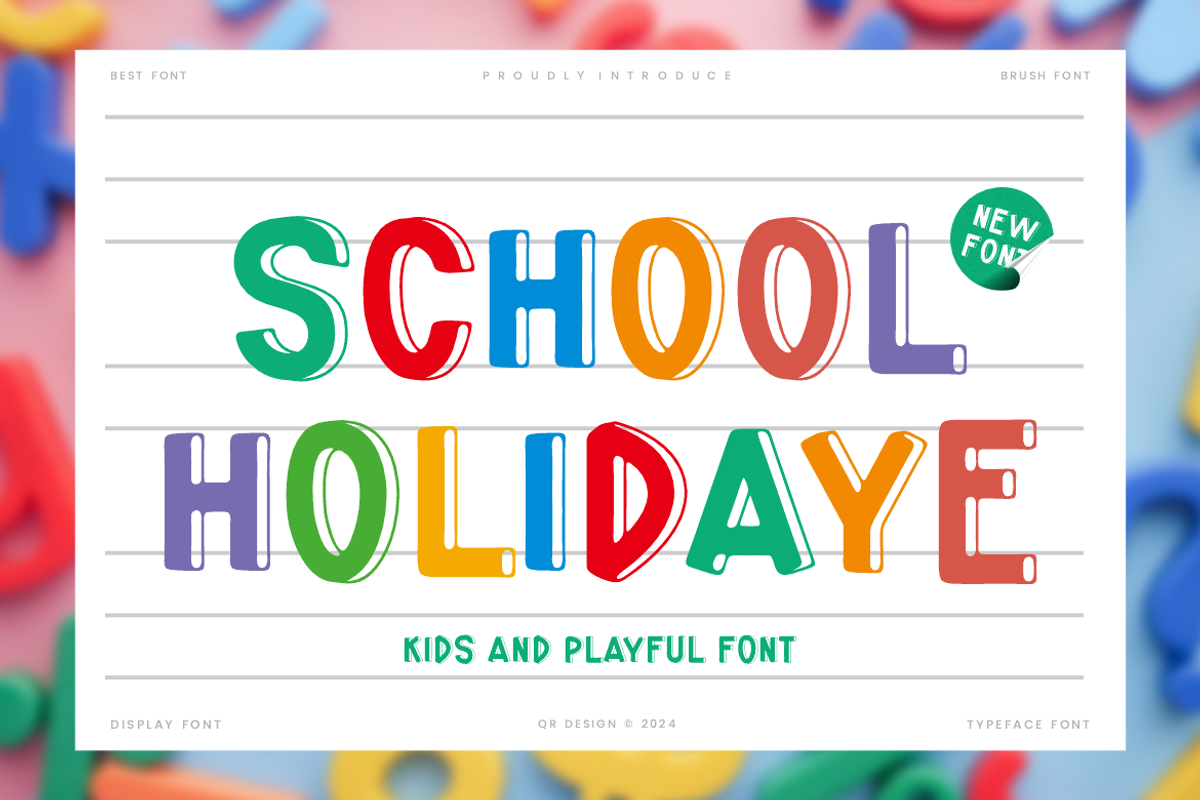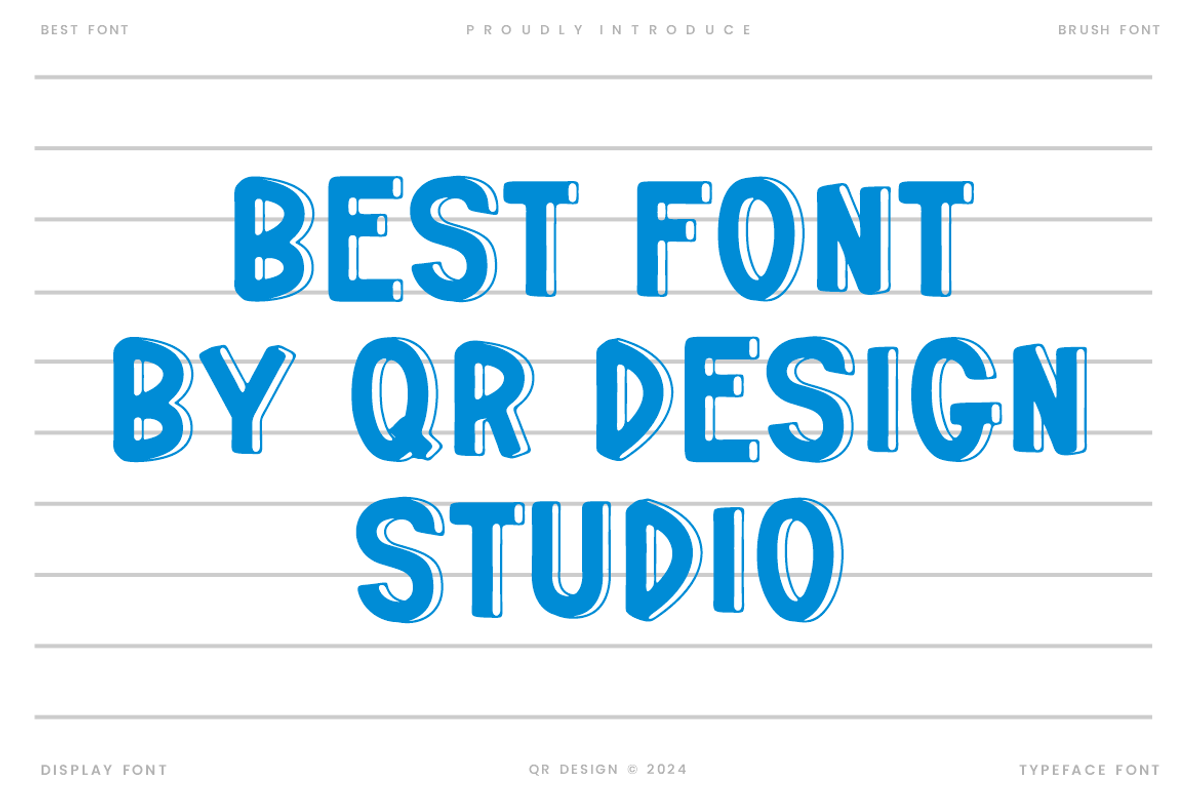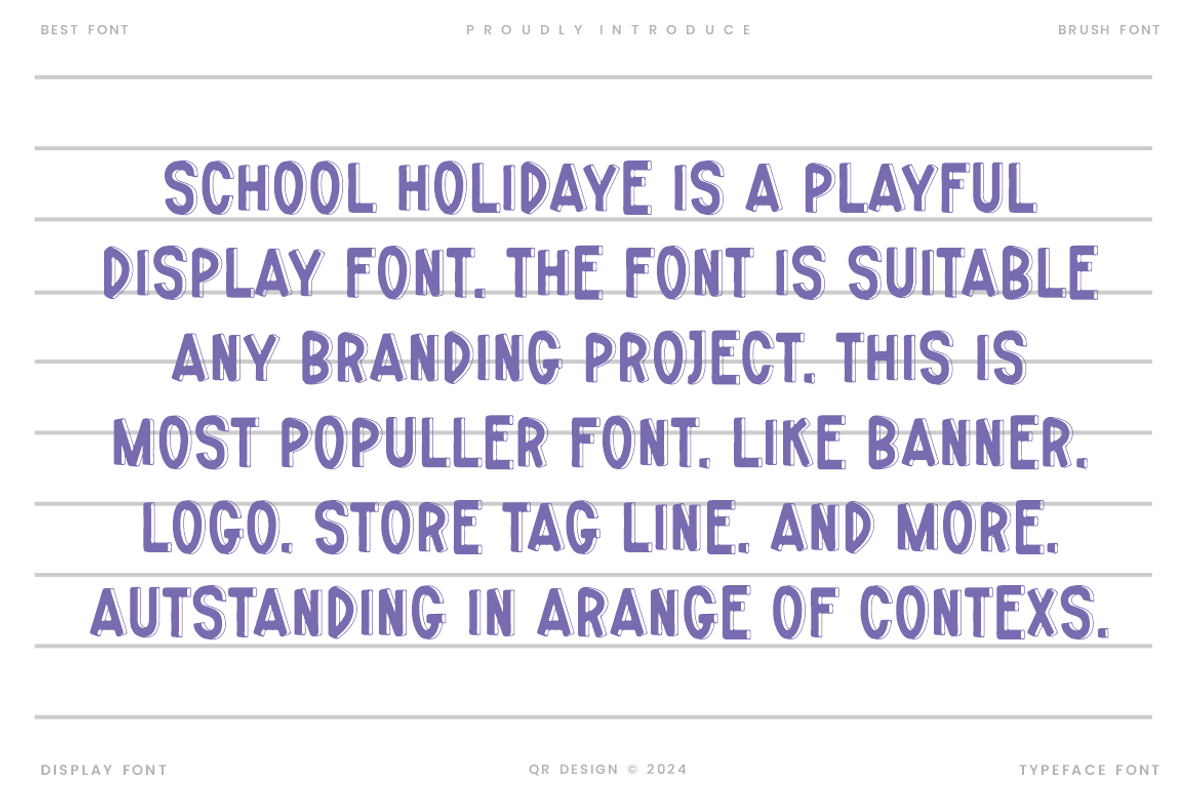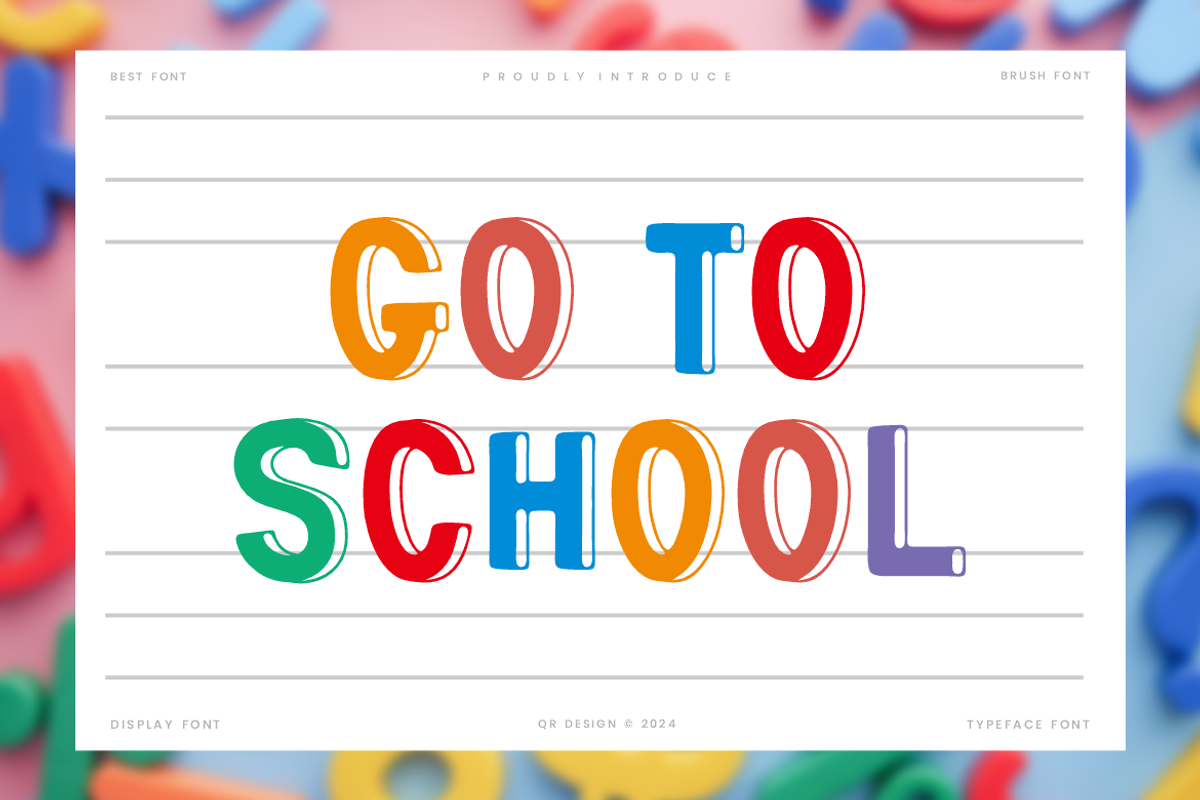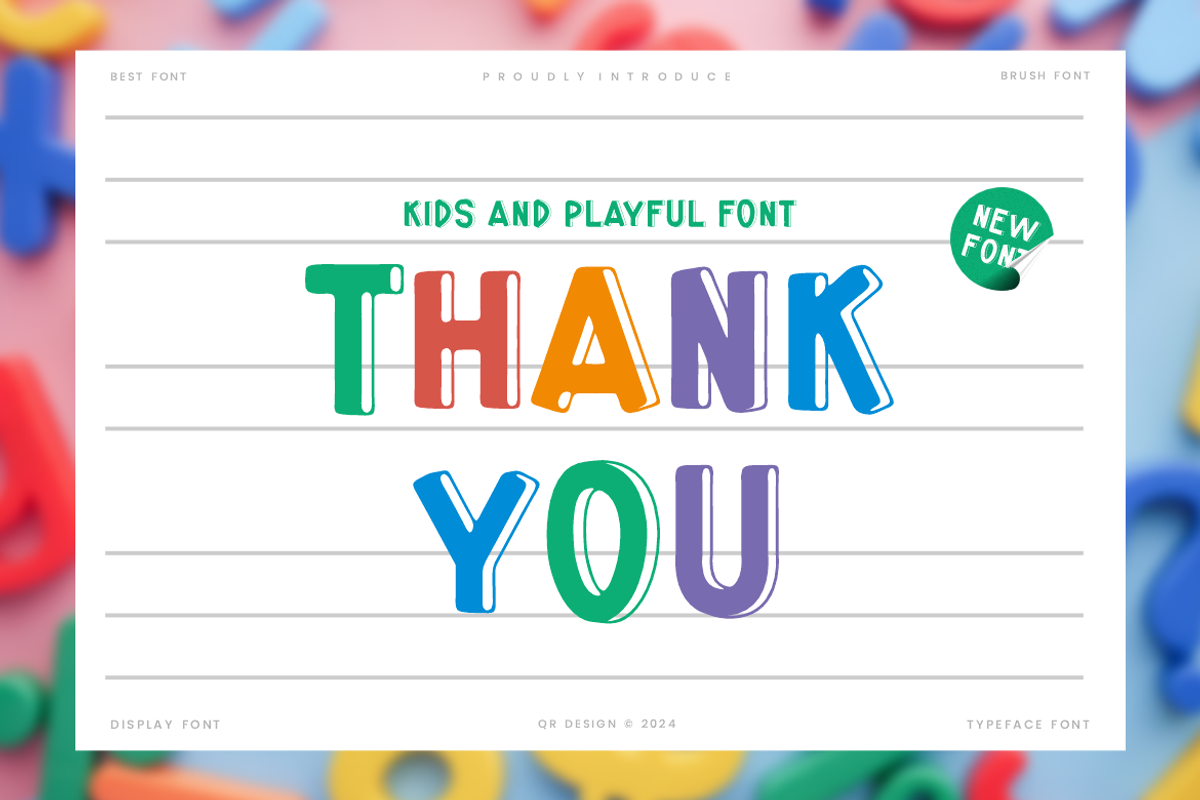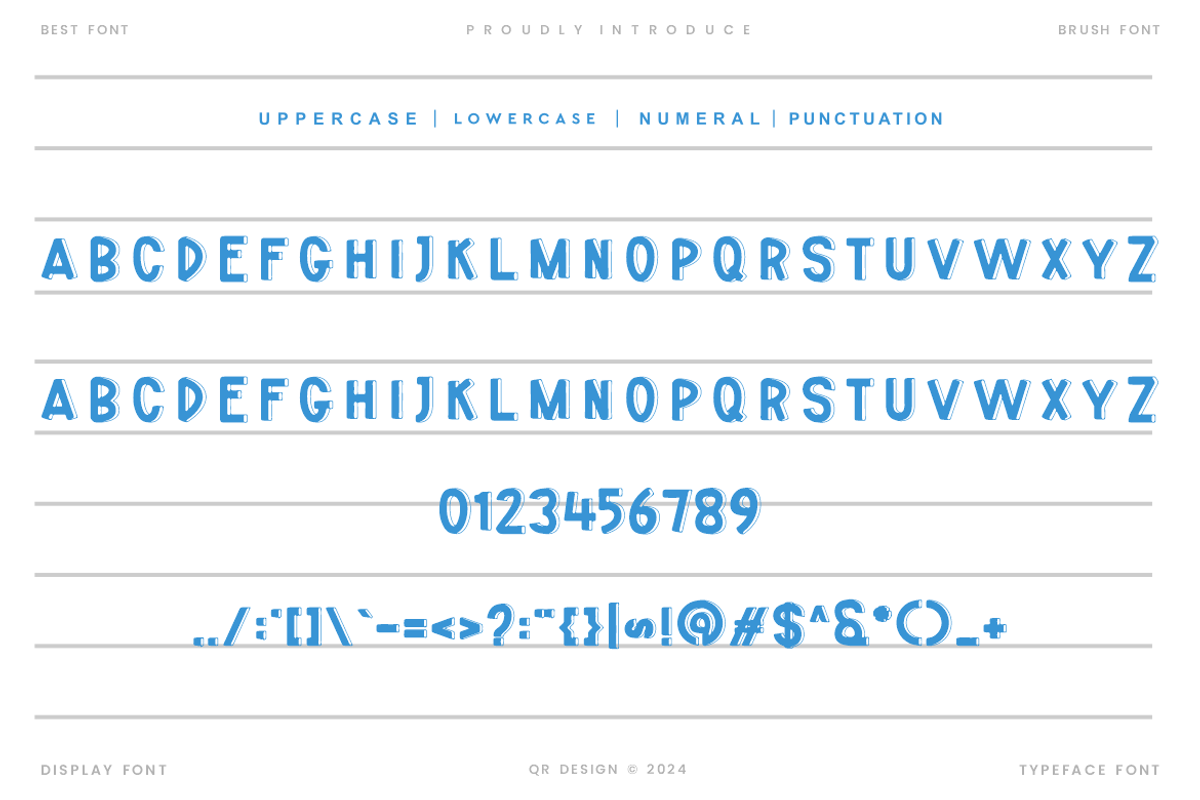
School Holidaye - Playful Font
School Holidaye Font is a playful and authentic display font. The font is suitable for any branding project like poster, logo, sport, and many more. Outstanding in a wide range of contexts.